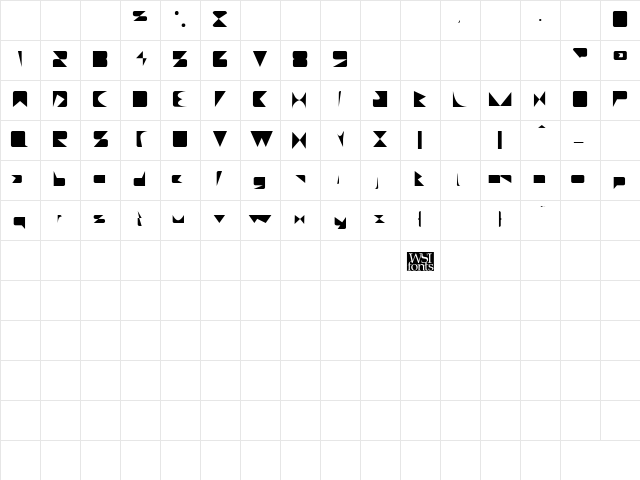
BizarreLapped Regular
Design Context for BizarreLapped Typeface
BizarreLapped is a composed and adaptable typeface that performs quietly and consistently across a wide range of design contexts.